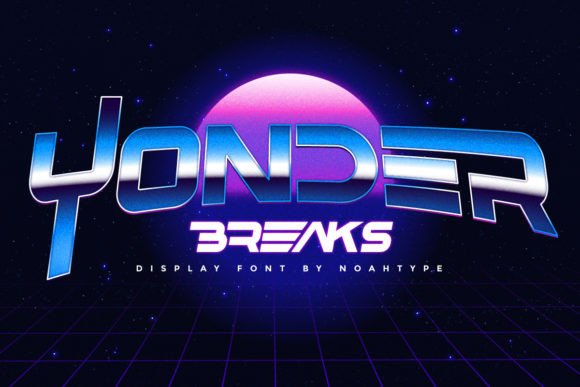
Journey beyond the boundaries of ordinary fonts and step into the extraordinary realm of Yonder Breaks Font - a futuristic display font that will catapult your designs to the forefront of innovation. With two captivating styles, Regular and Italic, this font is an artistic masterpiece inspired by the boundless expanse of outer space, bringing a touch of the future to your creative endeavors.
Yonder Breaks Font possesses an innate duality that allows it to transcend the boundaries of genres. Its modern style blends seamlessly with its easy-to-read nature, making it a versatile choice for a multitude of industries. Imagine your designs adorned with this font - advertising campaigns that leap off the page, drink brands that exude sophistication, events or festivals that ignite the senses, fashion statements that break the mold, games that transport players to uncharted territories, movies that captivate audiences with their immersive worlds, printing and publishing projects that leave a lasting impression, and space-themed creations that evoke awe and wonder.
Yonder Breaks Font is more than just a font; it's an invitation to embark on a creative odyssey where imagination knows no limits. Its sleek and futuristic appearance will add an instant touch of modernity to your designs, while its adaptability ensures that it complements any project seamlessly. Whether you're a graphic designer seeking to elevate your work, a marketer craving captivating visuals, or a creative professional looking to leave a lasting impact, Yonder Breaks Font is the ultimate choice.